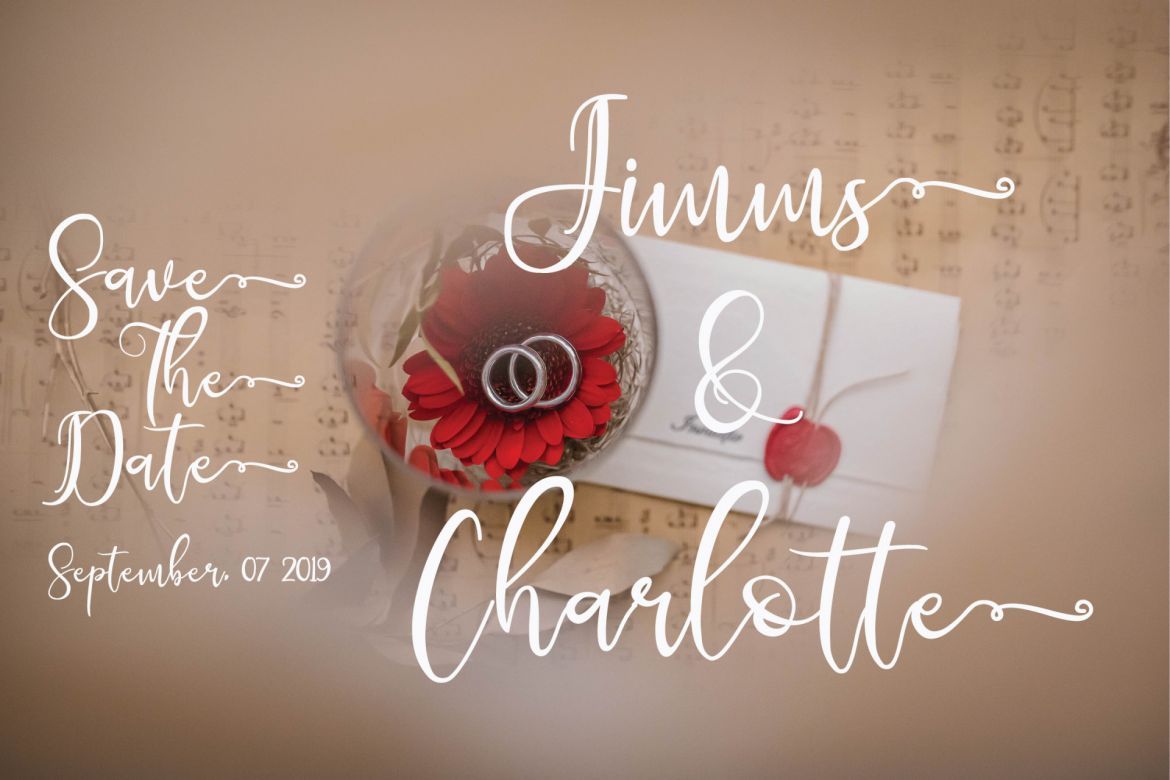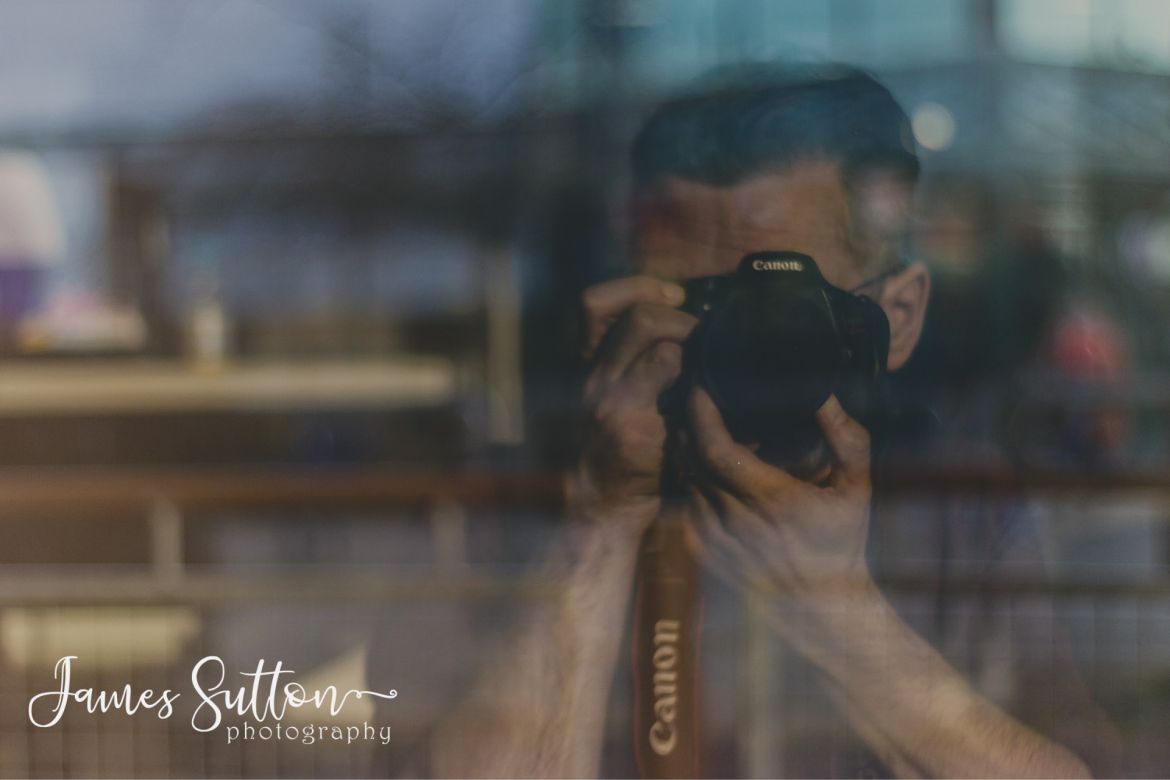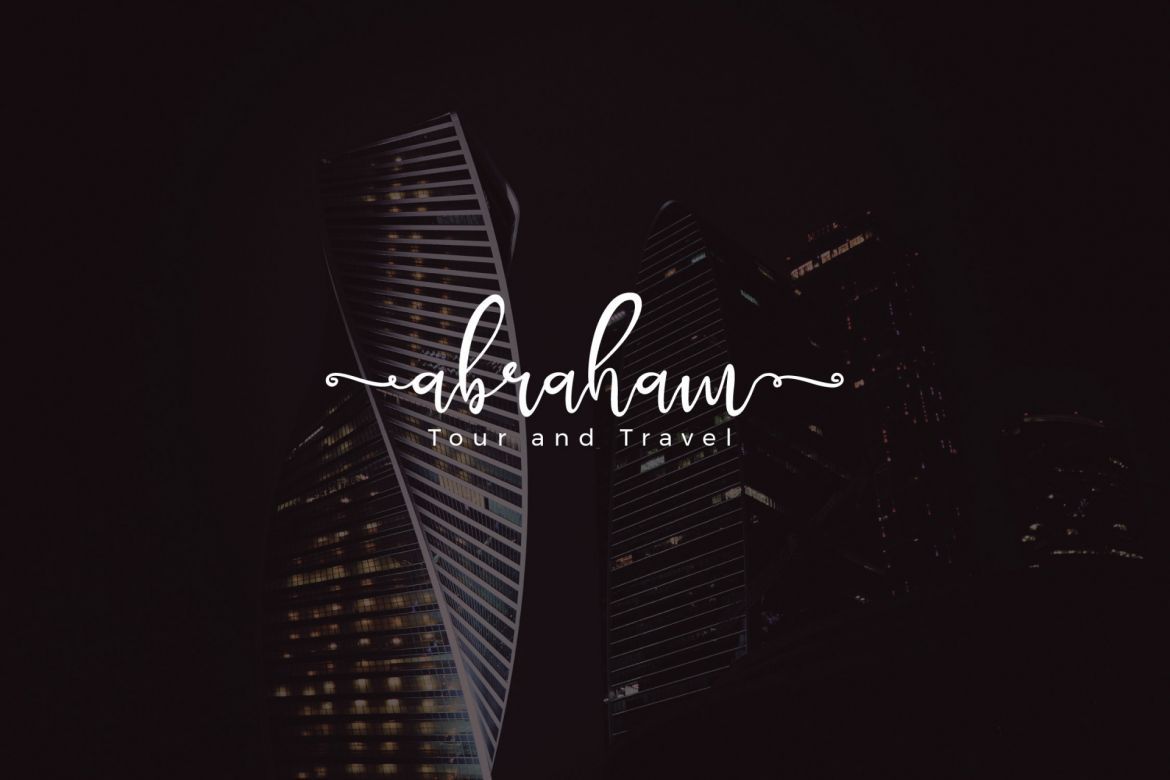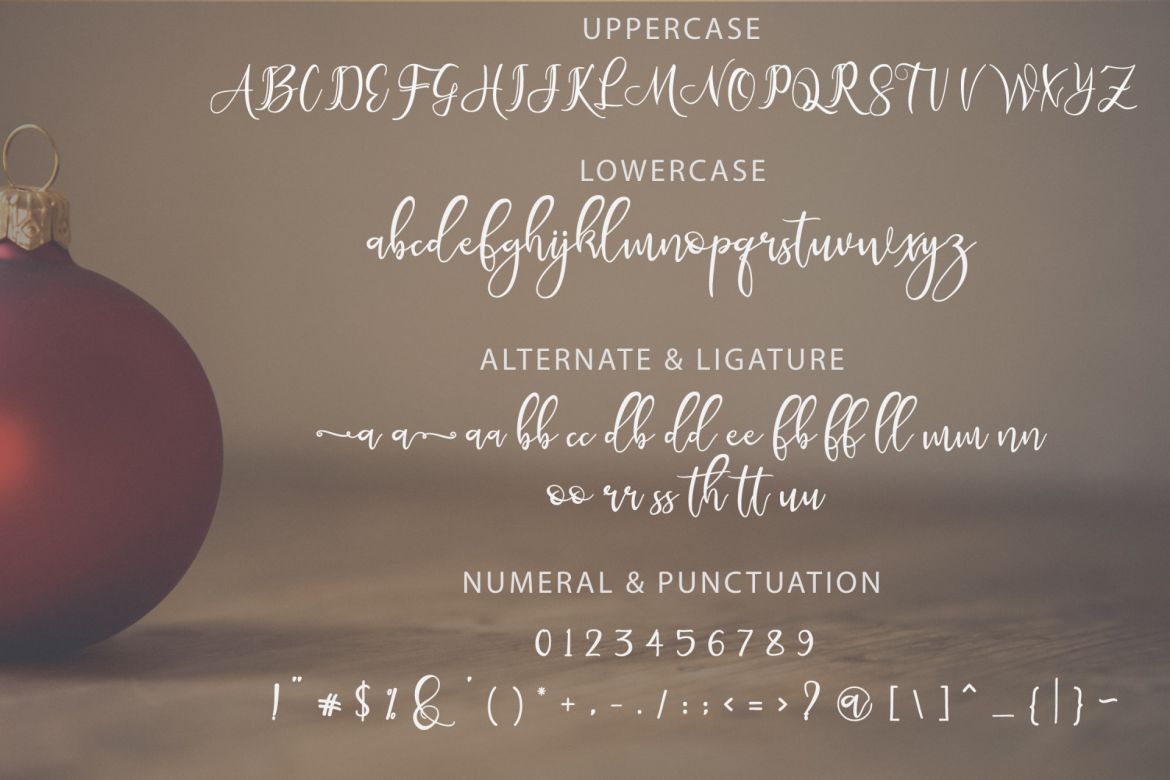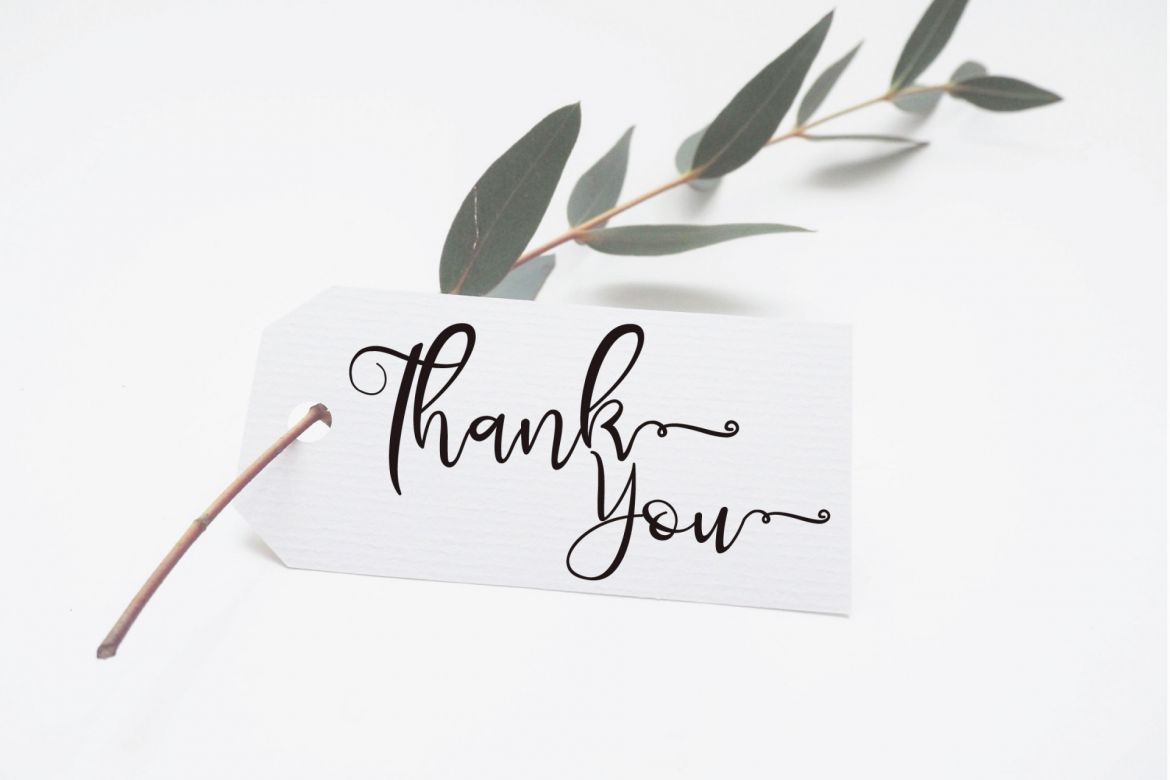
Mekhasant Calligraphy Script Font
Introducing the Modern Script Font Mekhasant! Mekhasant is Calligraphy Scrip font, every single letters have been carefully crafted to make your text looks beautiful. With modern script style this font will perfect for many different project ex: photography, watermark, quotes, blog header, poster, wedding, branding, logo, fashion, apparel, letter, invitation, stationery, etc.